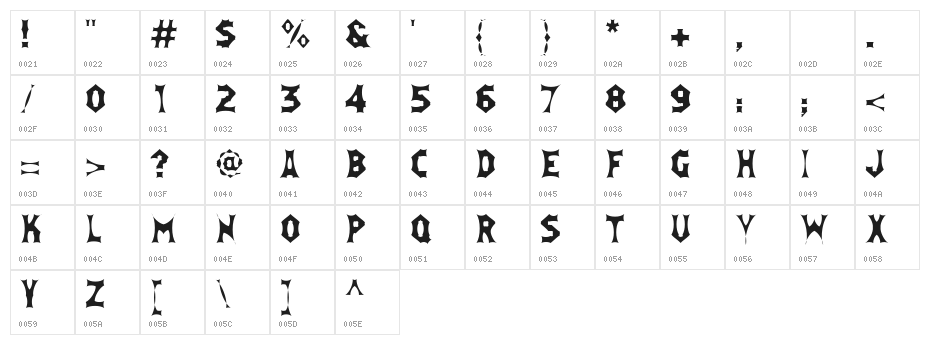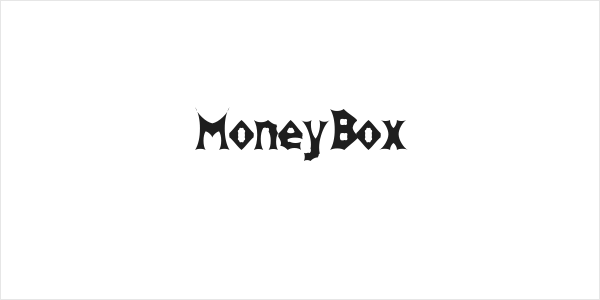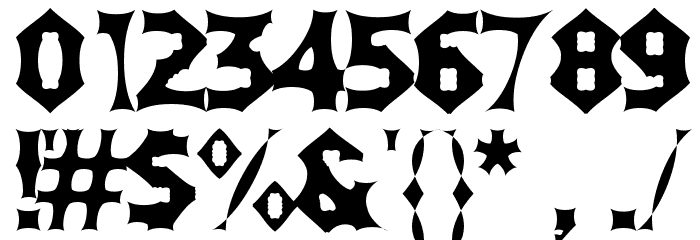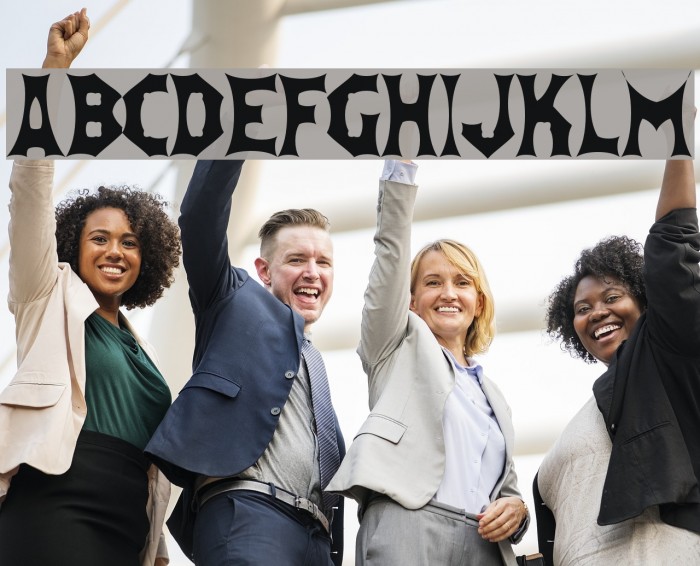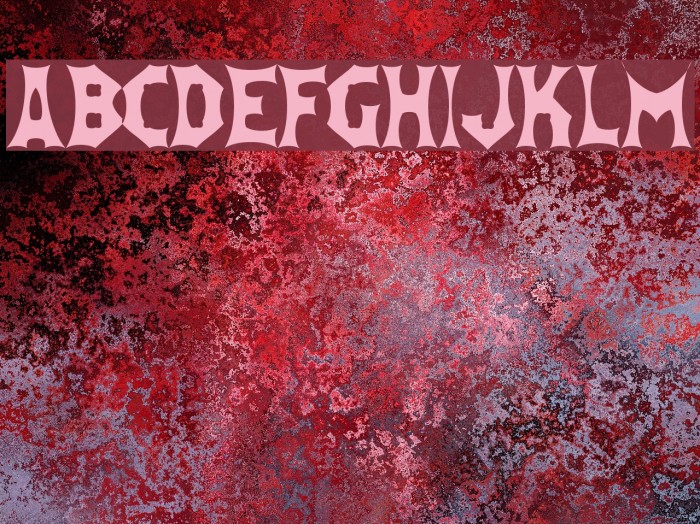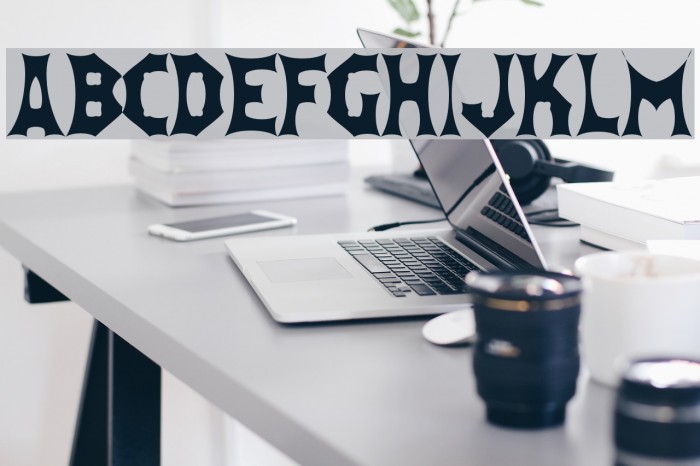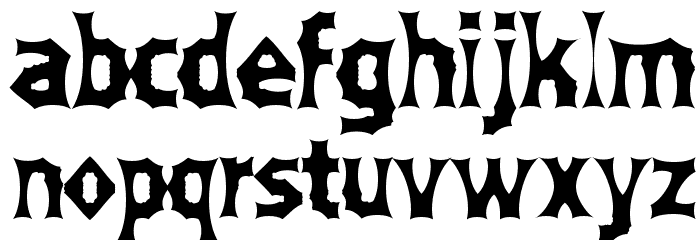
MoneyBox Font
MoneyBox Description
This font features a bold and dramatic style with sharp, angular edges and a distinct Gothic influence. The characters are heavily stylized, with exaggerated serifs and a high level of contrast between thick and thin strokes. The uppercase letters are particularly striking, with a sense of movement and flair, while the lowercase letters maintain a consistent aesthetic. The numbers and special characters follow the same design principles, ensuring a cohesive look across all elements. This font is designed to capture attention and convey a sense of intensity and boldness.
| Overall Style | Gothic, Dramatic, Bold |
| Use Case | Headlines, Posters, Album Covers |
| Proposed Projects | Ideal for use in horror-themed designs, posters, album covers, or any project requiring a dramatic and eye-catching typeface. |